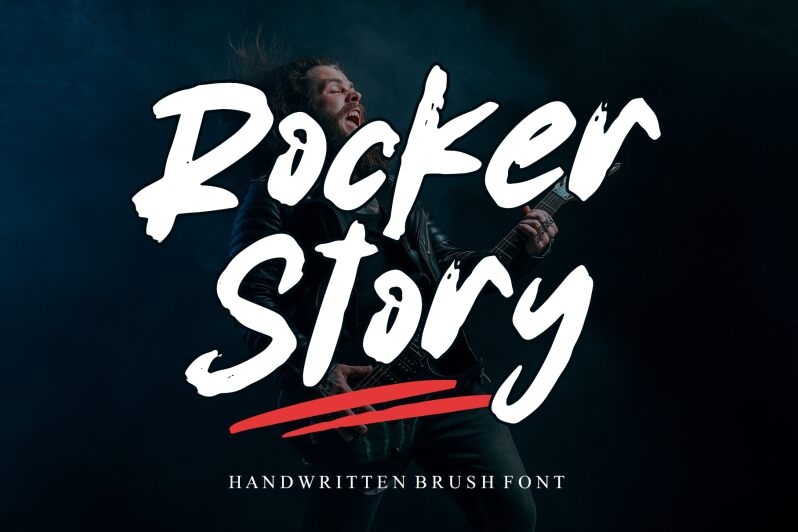
Rocker Story font by Letterafa Studio is a free brush font inspired by motorcycle gangs and the freedom of the open road. Brush strokes and dynamic movements fill this beautifully handwritten typeface to add instant vitality to any type of text. The edgy design extends to the font’s structure and characters. It is informal, casual, and expressive all at once.
This font resembles the style of many rocker gangs’ logos and artistic designs. It thus will make a great addition to music or youth-oriented branding. Further suitable projects include posters, flyers, evens and concerts branding, apparel design, magazines’ covers, logos, social media posts, and website design among others.